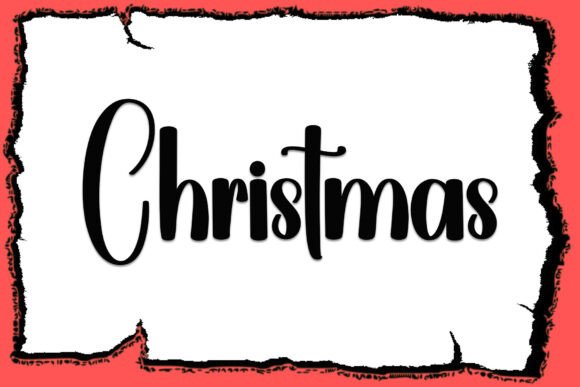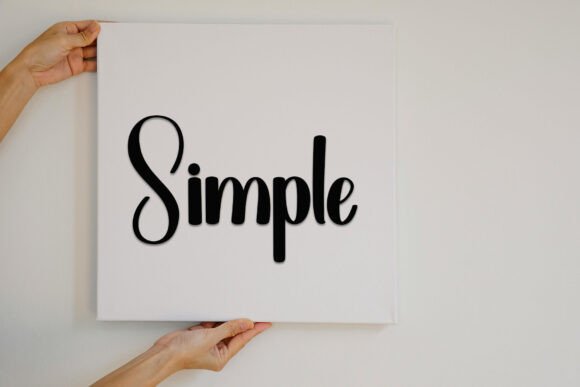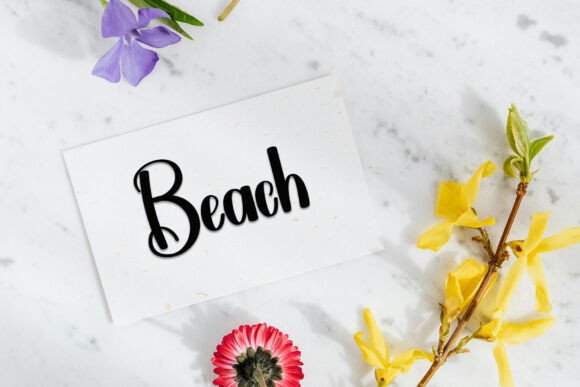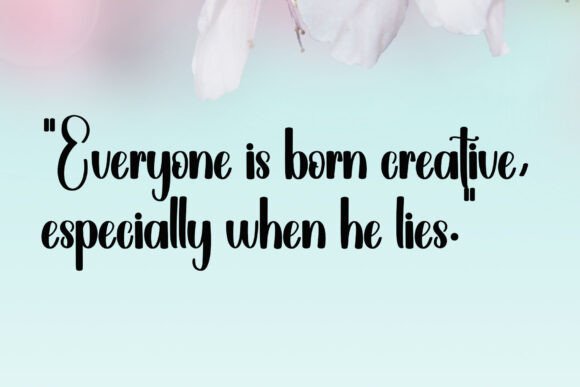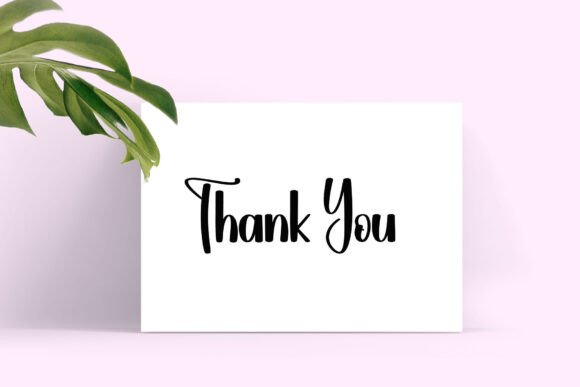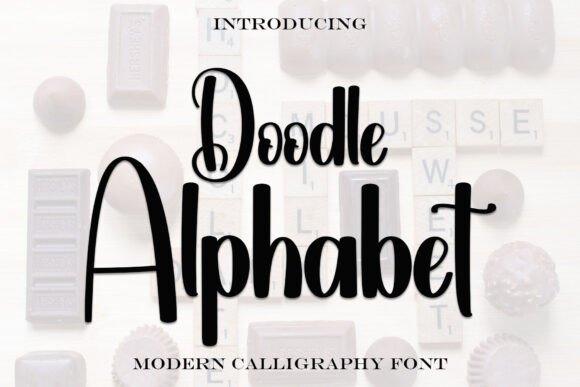
Doodle Alphabet Font: Elevate Your Designs with Elegance
Are you on the hunt for a font that adds a touch of sophistication and whimsy to your projects? Look no further than the Doodle Alphabet Font. This stunning handwritten font is described by its elegant touch, making it perfect for designers and crafters who want to create spectacular designs that stand out from the crowd.
The Charm of Doodle Alphabet Font
Doodle Alphabet Font is a neat and beautiful font that boasts an incredibly distinct and timeless style. Its elegant touch is sure to capture the hearts of designers and crafters alike, making it an excellent addition to your font collection. Whether you’re working on a branding project, creating social media graphics, or designing invitations, this font is sure to bring a touch of magic to your work.
What Makes Doodle Alphabet Font Special?
- Elegant Touch: The Doodle Alphabet Font is characterized by its elegant touch, which sets it apart from other fonts. Its refined and sophisticated style makes it perfect for projects that require a high level of professionalism.
- Handwritten Style: The font’s handwritten style gives it a personal and unique feel, making it ideal for projects that require a touch of personality.
- Distinct and Timeless: The Doodle Alphabet Font has a distinct and timeless style that will not go out of fashion anytime soon. Its classic appeal ensures that your designs will remain relevant for years to come.
- Versatile: This font is versatile and can be used for a wide range of projects, from branding and advertising to crafting and DIY projects.
How to Use Doodle Alphabet Font
The Doodle Alphabet Font is perfect for designers and crafters who want to add a touch of elegance and whimsy to their projects. Whether you’re creating:
- Branding Materials: Use the Doodle Alphabet Font to create stunning branding materials, such as logos, business cards, and letterheads.
- Social Media Graphics: Create eye-catching social media graphics, such as Facebook posts, Instagram stories, and Twitter headers.
- Invitations and Stationery: Design beautiful invitations, stationery, and greeting cards that will leave a lasting impression.
- Crafting and DIY Projects: Use the Doodle Alphabet Font to add a personal touch to your crafting and DIY projects, such as scrapbooking, journaling, and handmade cards.
In conclusion, the Doodle Alphabet Font is a stunning handwritten font that is perfect for designers and crafters who want to add a touch of elegance and whimsy to their projects. Its elegant touch, distinct and timeless style, and versatility make it an excellent addition to your font collection. So why wait? Fall in love with the Doodle Alphabet Font and use it to create spectacular designs that will leave a lasting impression.